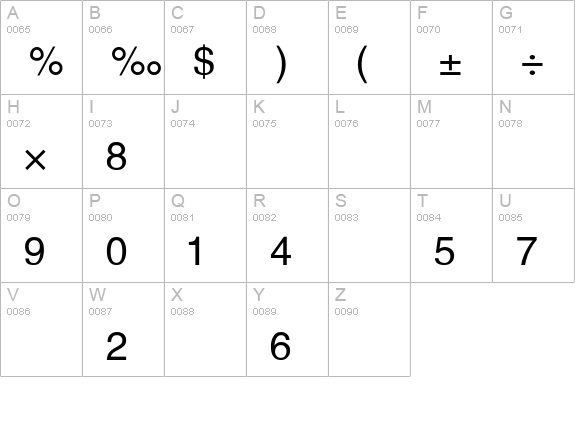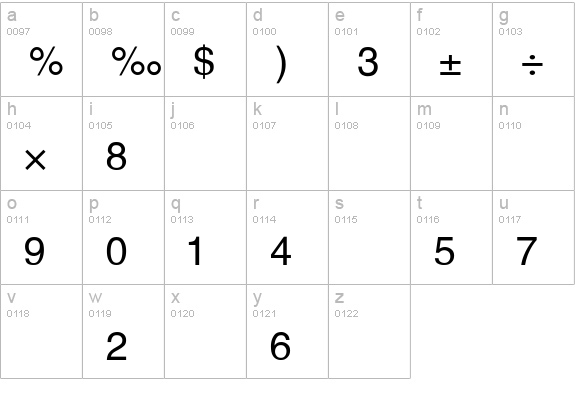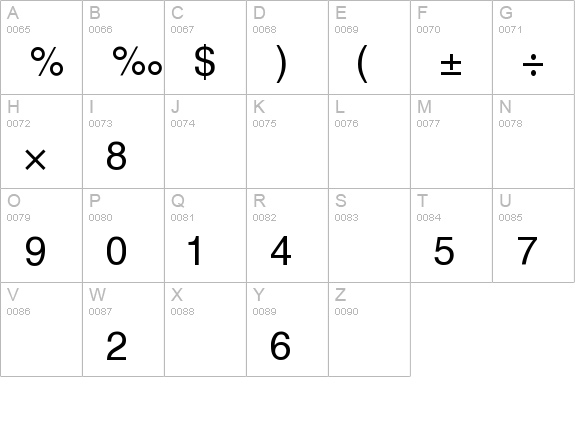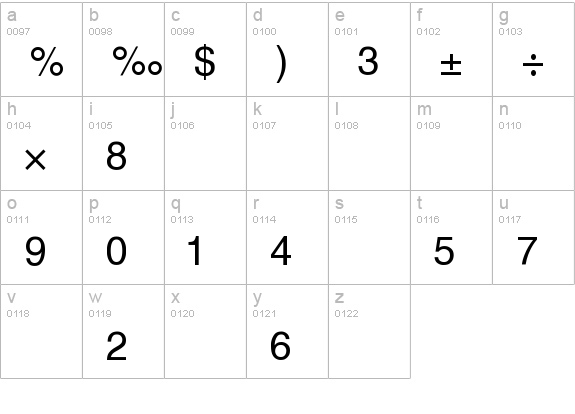
Alex-Fracs Font Details
Introducing Alex-Fracs font, a dynamic and modern typeface that will bring a fresh and contemporary look to your design projects. This versatile font features a unique blend of sharp angles and smooth curves, making it ideal for a wide range of applications, from branding to editorial design. What sets Alex-Fracs font apart is its ability to convey a sense of sophistication and creativity, making it perfect for projects that require a touch of elegance and style. Whether you're working on a logo, poster, or website design, this font will help you stand out from the crowd and make a lasting impression on your audience. The best part? Alex-Fracs font is completely free to download at FontsMarket.com, allowing you to access this stunning typeface without any cost. Don't miss out on this opportunity to elevate your design work with the sleek and stylish Alex-Fracs font. Download it today and start creating beautiful and impactful designs effortlessly.